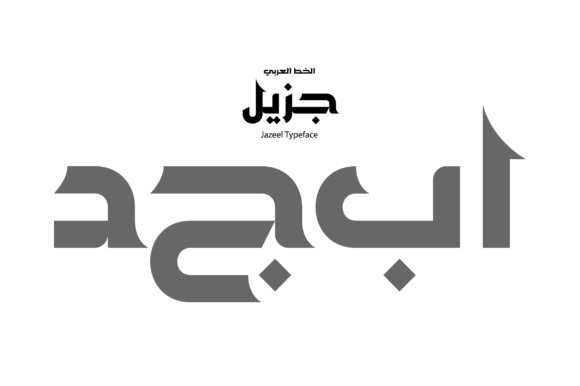
Unleash the captivating power of expression with Jazeel Font, a masterpiece crafted by the renowned artist Mostafa El Abasiry. This Arabic display font boasts a solid geometric structure, exuding boldness and legibility in every letterform. With Jazeel Font as your creative companion, transform your designs into captivating visual experiences that resonate with your audience. Discover the limitless applications of Jazeel Font, from commanding headlines that grab attention to impactful paragraphs that leave a lasting impression, both in print and on the vast digital landscape.
Immerse yourself in the rich cultural heritage of Arabic typography with Jazeel Font, a testament to the beauty and elegance of the written word. Its meticulously designed characters dance across the page, evoking a sense of tradition and modernity. Unlock a world of creative possibilities as you weave captivating narratives through your designs, capturing the essence of your message with each stroke of this remarkable font.
Embrace the versatility of Jazeel Font, a font that effortlessly adapts to a multitude of design aesthetics. Whether you seek a bold statement for advertising campaigns, a touch of sophistication for branding projects, or an air of elegance for editorial layouts, Jazeel Font delivers an unparalleled level of flexibility. Its inherent charm lends itself to a symphony of creative expressions, allowing you to craft designs that resonate with your unique vision.
With Jazeel Font as your design ally, transcend the boundaries of ordinary typography and embark on a journey of visual enchantment. Witness the transformation as your creations come alive with a captivating aura, captivating the attention of your audience and leaving an indelible mark on their minds. Elevate your designs to new heights with Jazeel Font, the ultimate display font that unlocks the gates to creative brilliance.